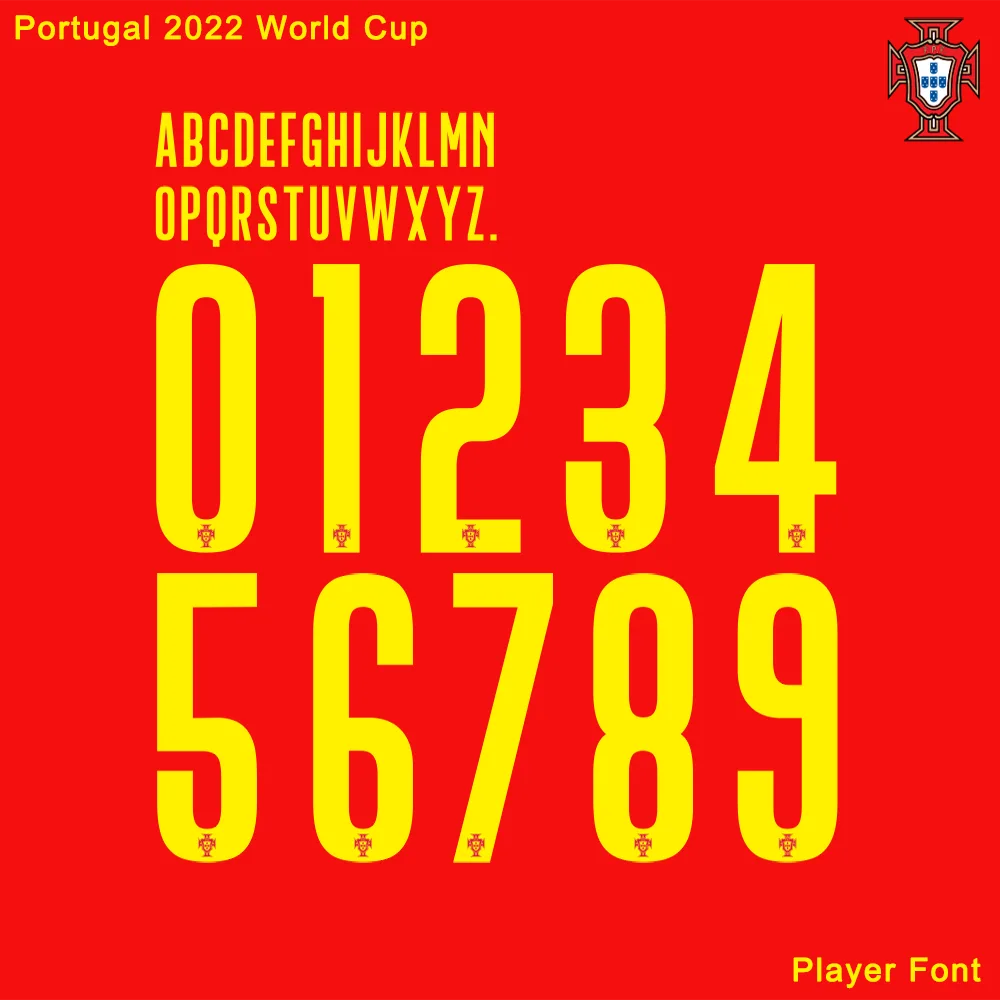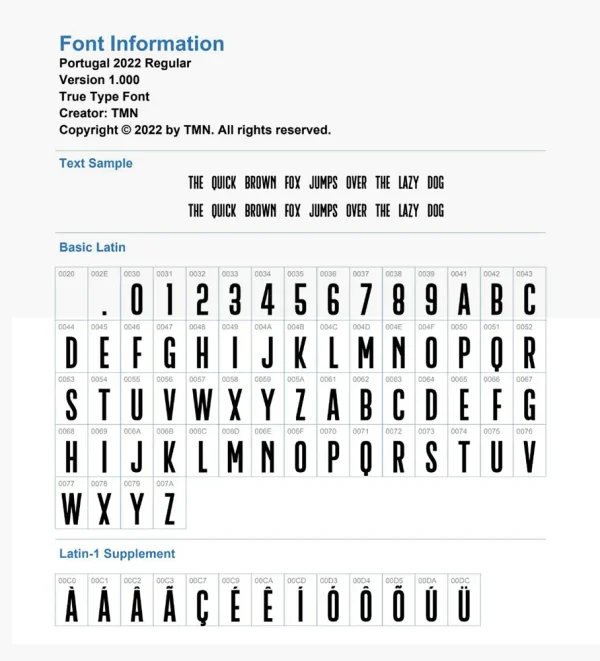
The Modern Era: Portugal 2022 World Cup Font
Celebrate Portugal’s journey in Qatar with the official-style Portugal 2022 World Cup Font. Designed to match the bold, diagonal half-and-half kit, this font features a clean, sans-serif look with customized geometric angles that reflect modern Portuguese football.
Authentic 2022 Style: Precision-engineered to replicate the on-pitch numbers and letters used by stars like Cristiano Ronaldo, Bruno Fernandes, and João Félix.
Vector Precision: Includes the intricate FPF (Portuguese Football Federation) crest detail embedded at the bottom of the numbers.
Complete Character Map: Includes uppercase A-Z, numbers 0-9, and essential accented characters for international player names.